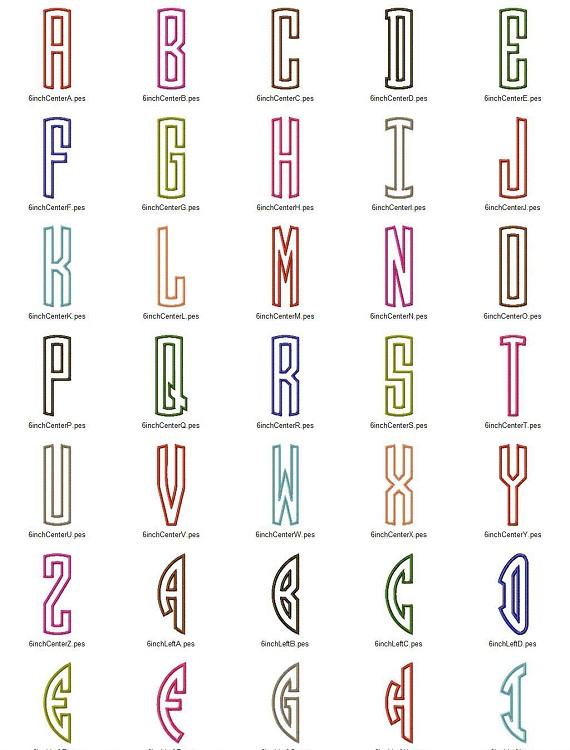
Round 3 Letter Monogram Applique (Satin w/ Bean Stitch) Machine Embroidery Alphabet Font
You get 4 sizes of upper case letters for the Right, Center, and Left side that form a circle shape when put together. The sizes are based off of the center letter - 4x4 sized set, 5", 6", and 7".
All the letters are applique. Each letter is finished with a satin stitch with a bean stitch on top of it. 312 files total.